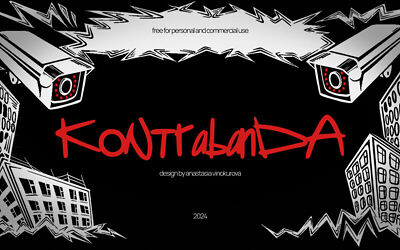
Kontrabanda is a bold, provocative hand-drawn font that bursts with energy and playful attitude. Each letter is crafted with spontaneous strokes, creating a casual, offbeat look that’s as bright and attention-grabbing as it is unique. The hand-drawn lines bring a sense of movement and character, making Kontrabanda font perfect for edgy branding, standout posters, or designs that aim to make a bold statement. This font’s vibrant personality adds a daring touch to any project, blending casual charm with an eye-catching, lively spirit.
Great for music covers, fashion, or anything with a rebellious edge, Kontrabanda font is here to bring a spark of creativity to your work.